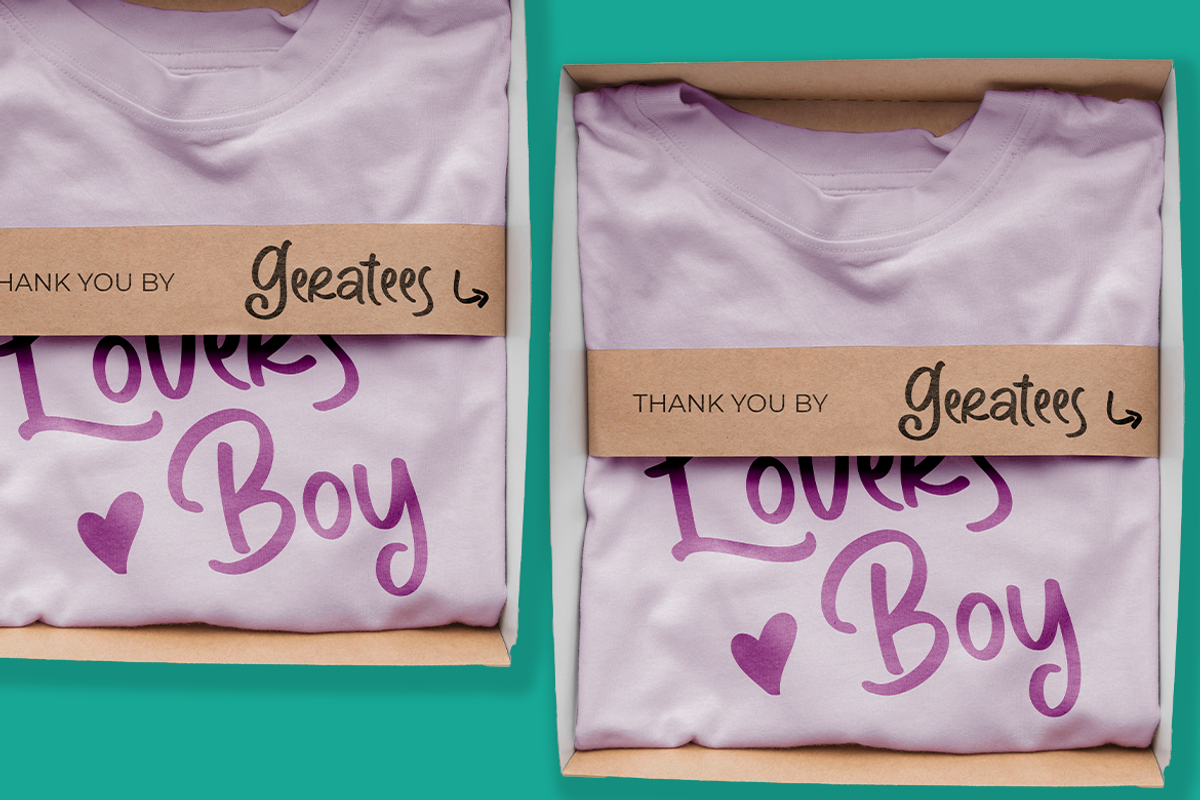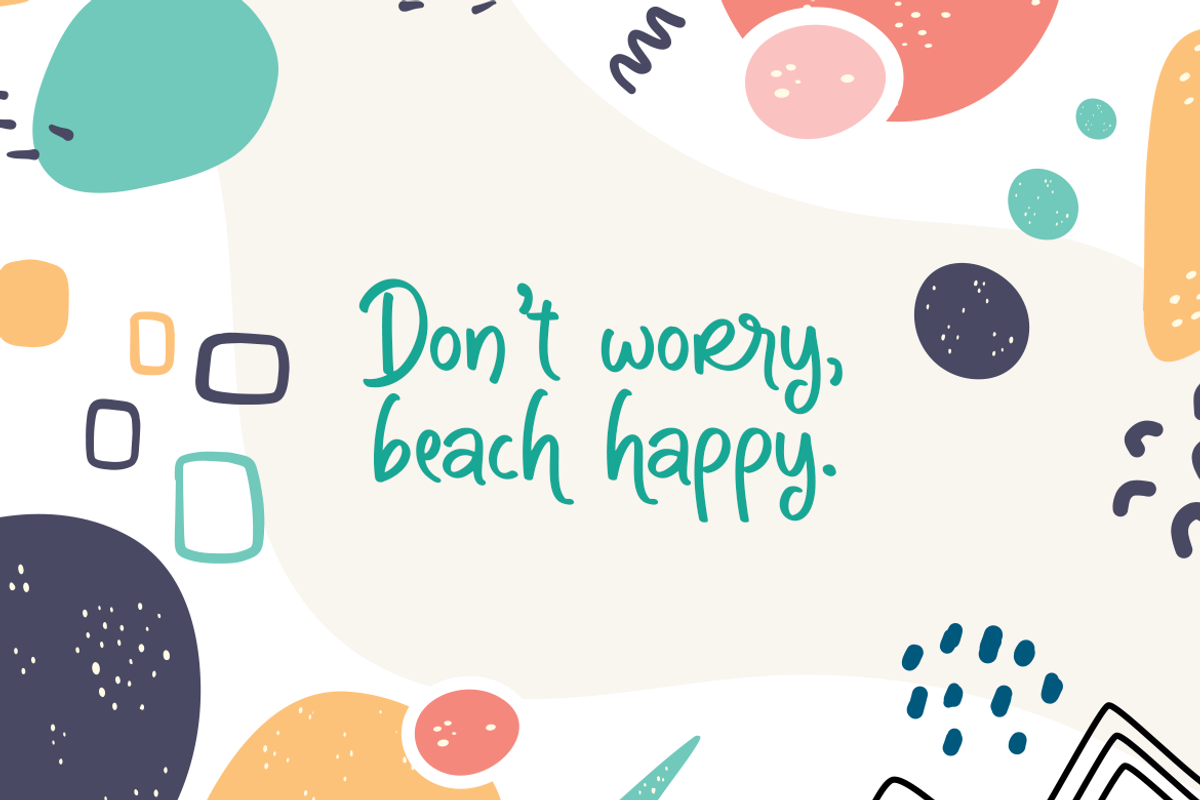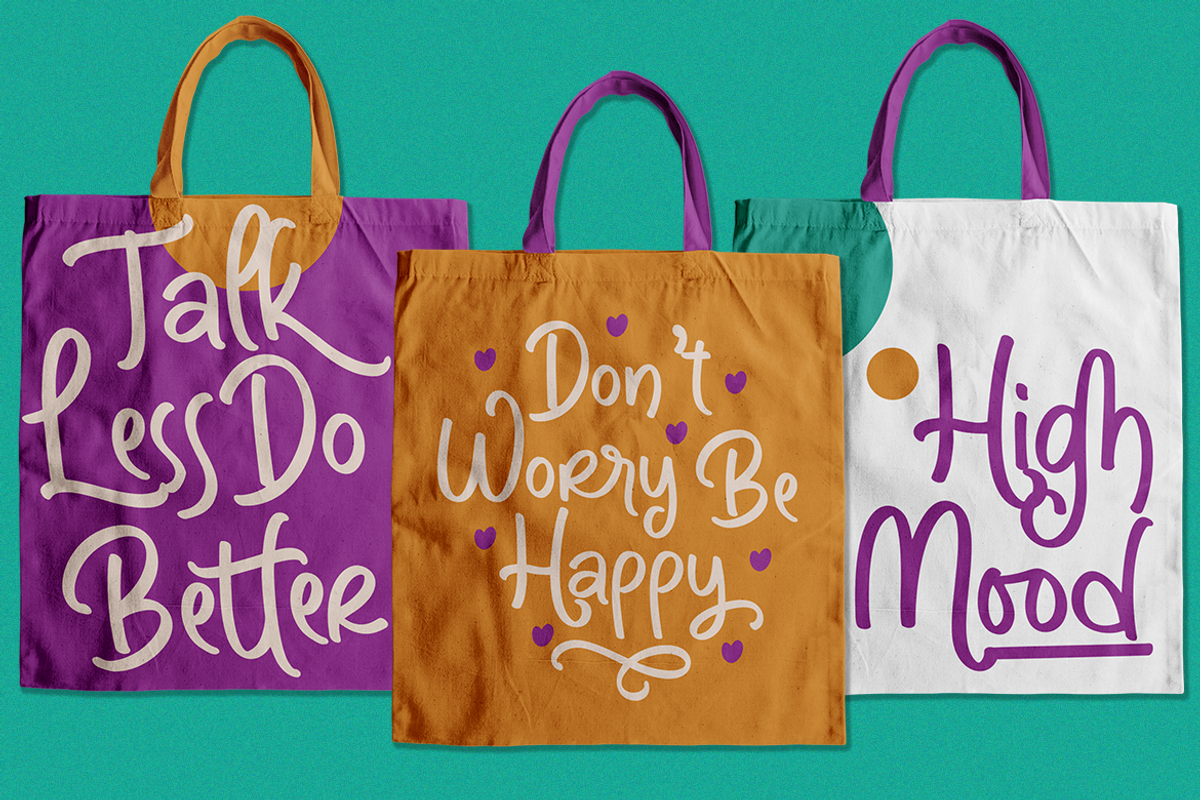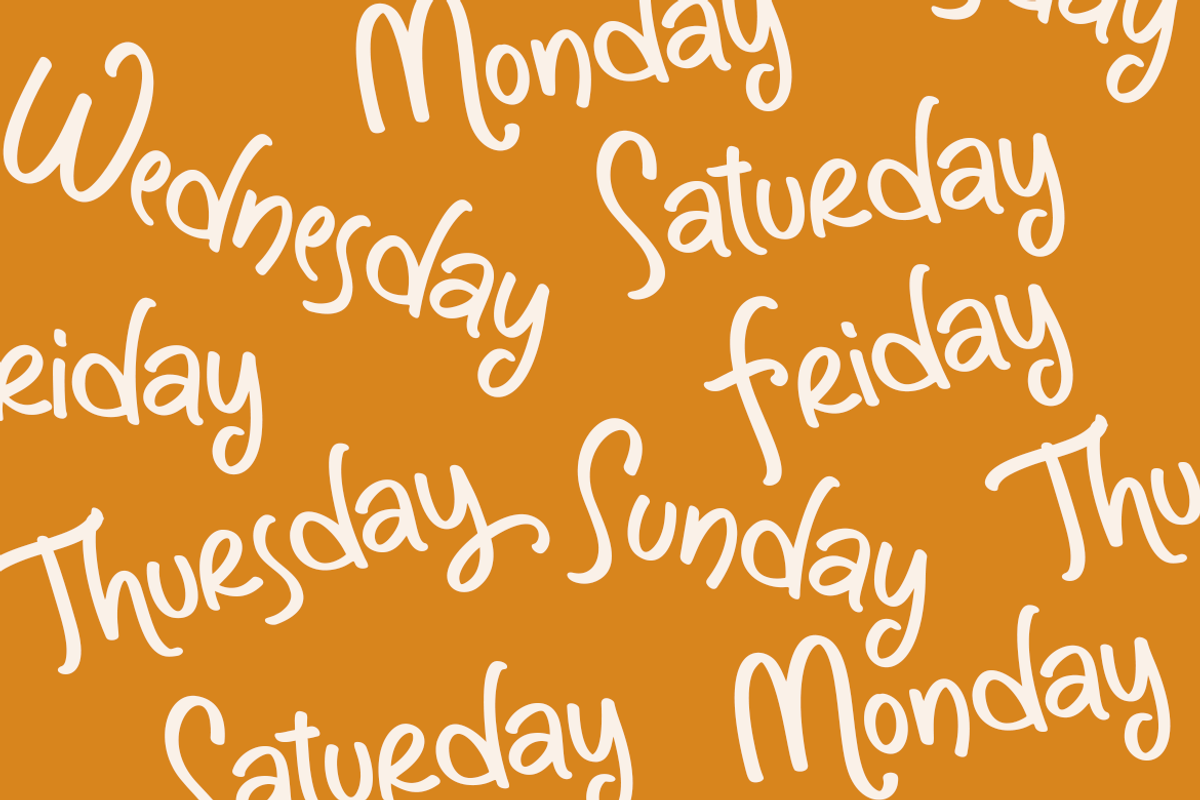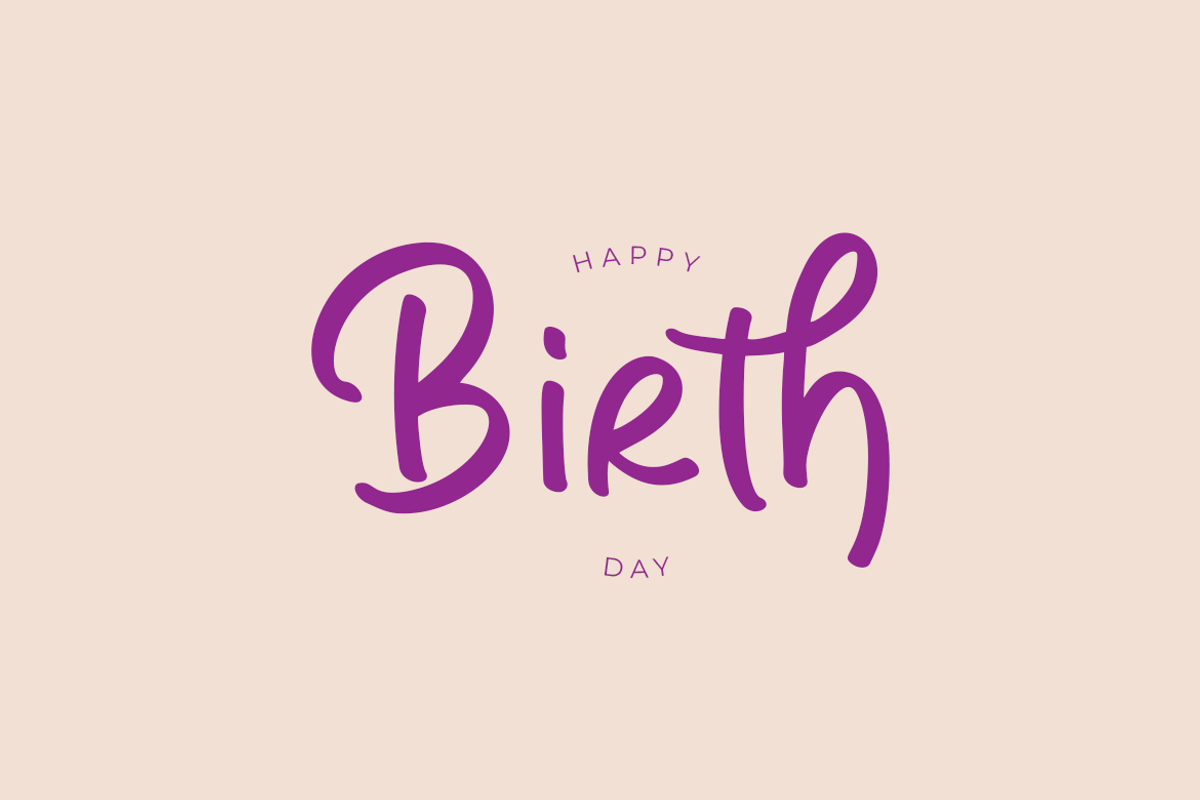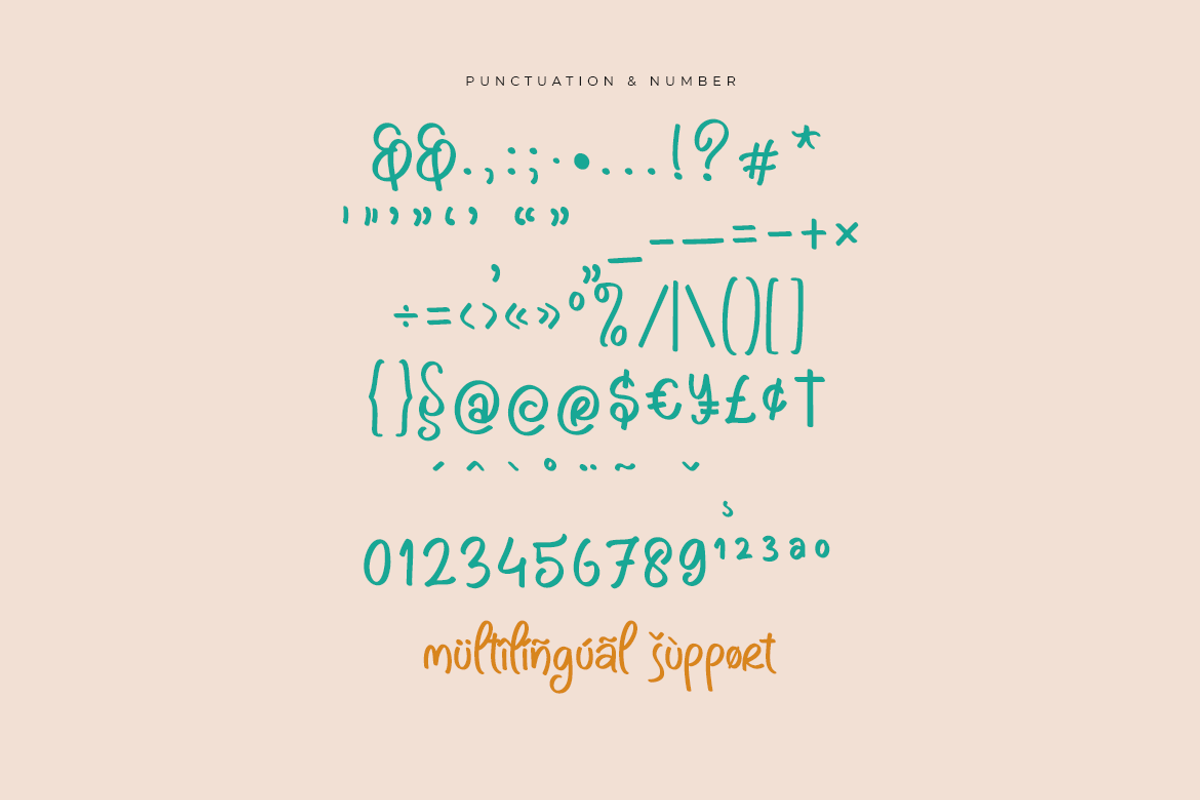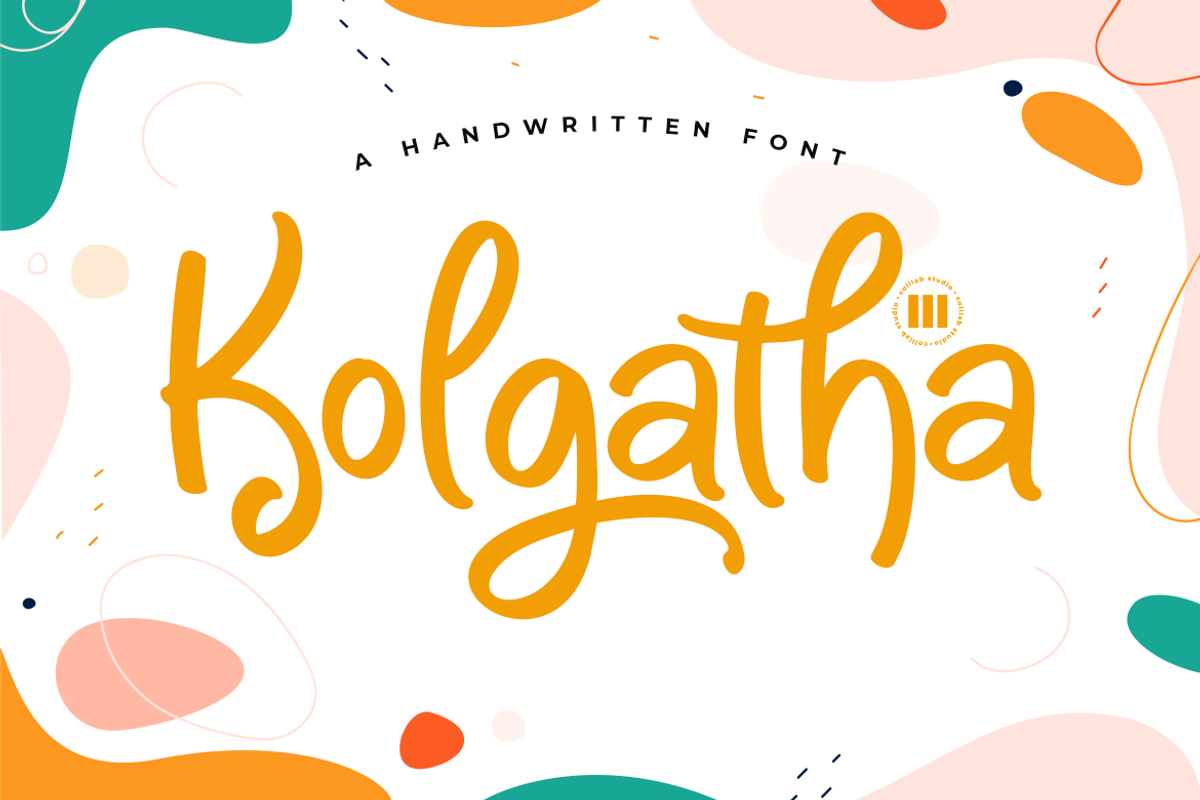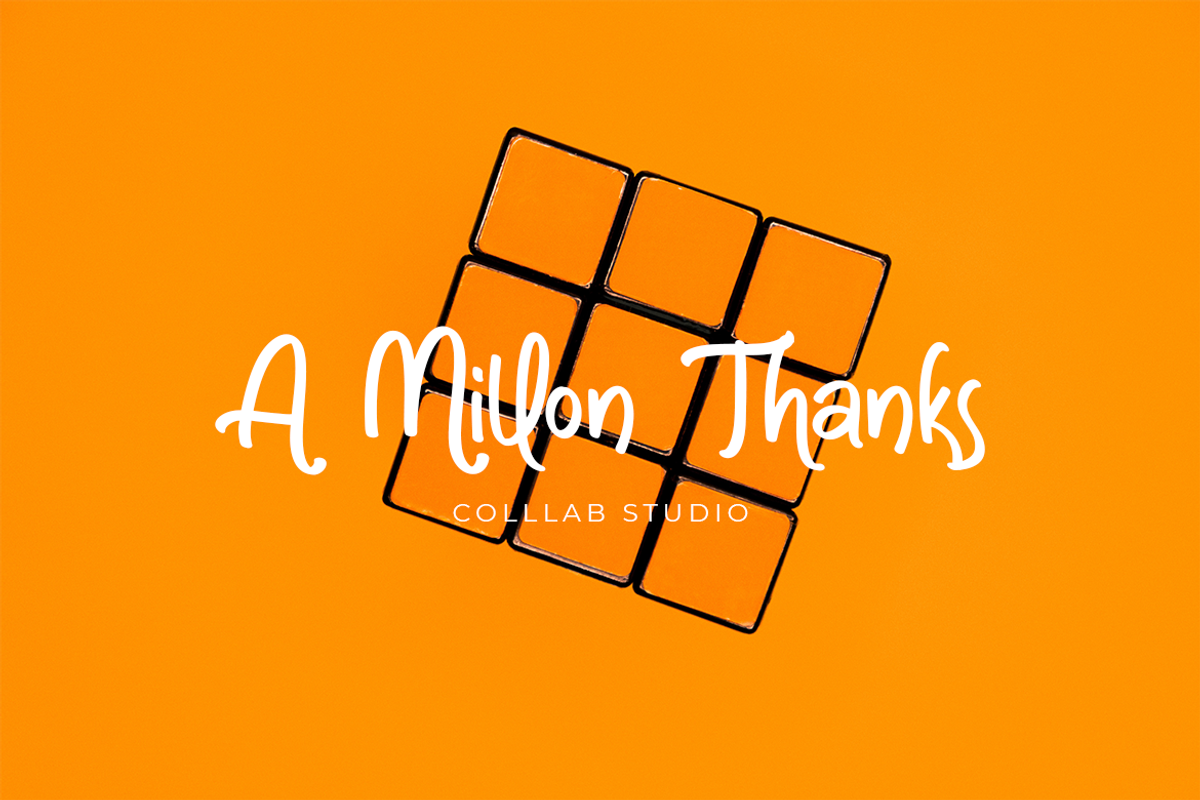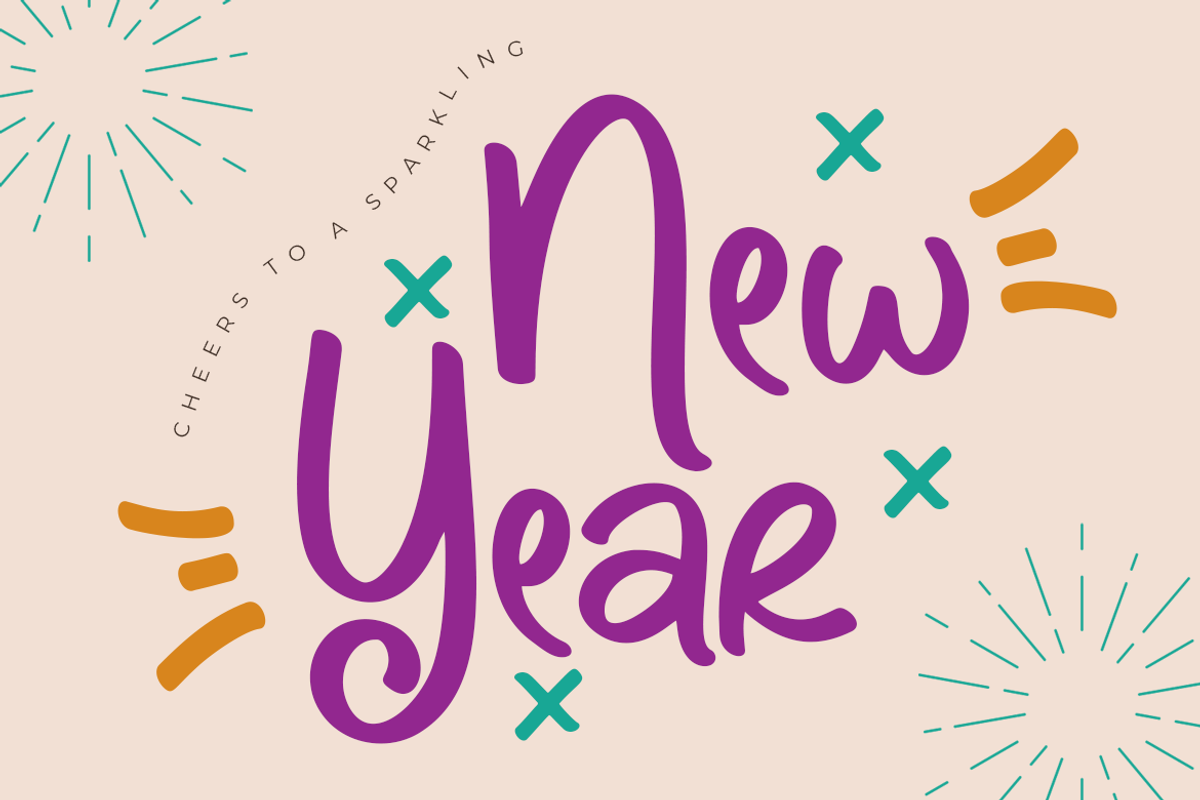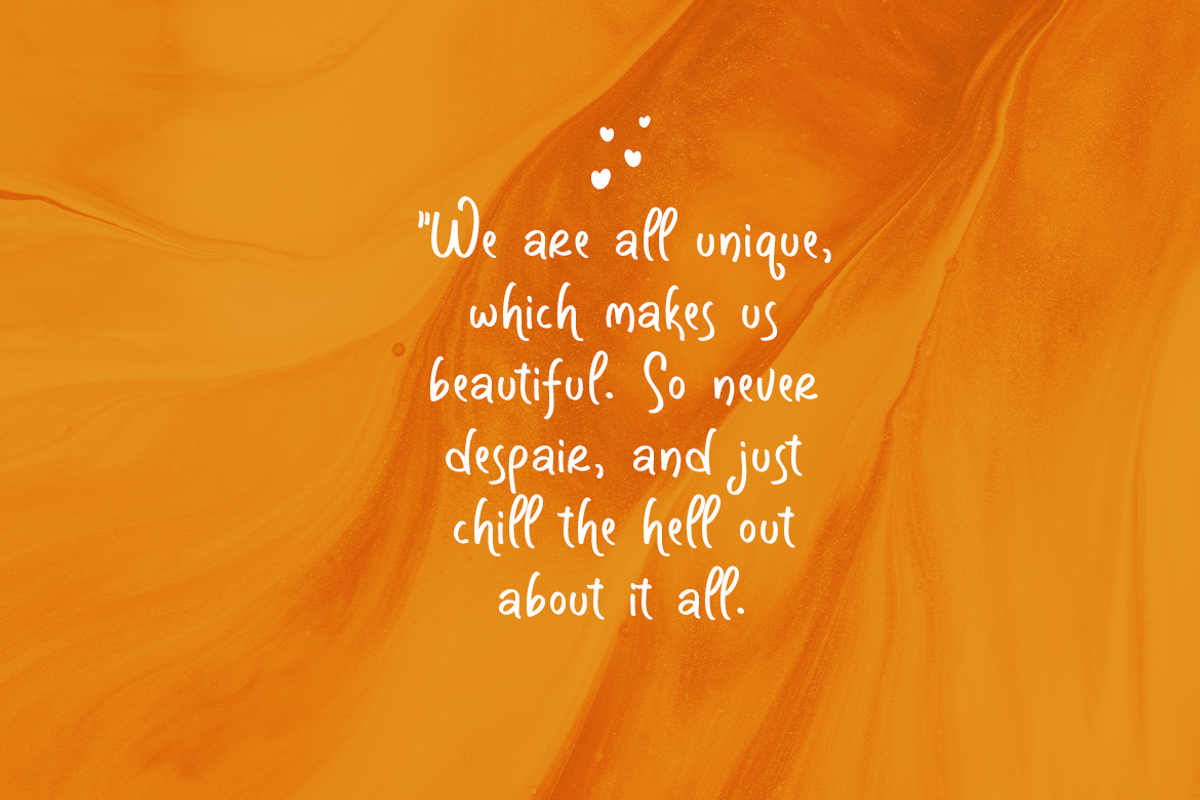
Kolgatha | A Handwritten Font
Be sure to check out Kolgatha font, a whimsical handwriting font for adding fun, playfulness and friendliness to your design or brand. Kolgatha is perfect for setting a fresh, lively mood in your branding and designs. This font makes it easy to show the handmade, fun and unique personality of your projects.
Beside, It’s fun, playful yet sleek. You will get a lot of compliments for using it. It’s great for greeting cards, branding or even packaging.
- 243 Glyps,
- set of Stylistic Alternates
- 40 + Ligatures
- Multilanguage Support ( 64 Languages )